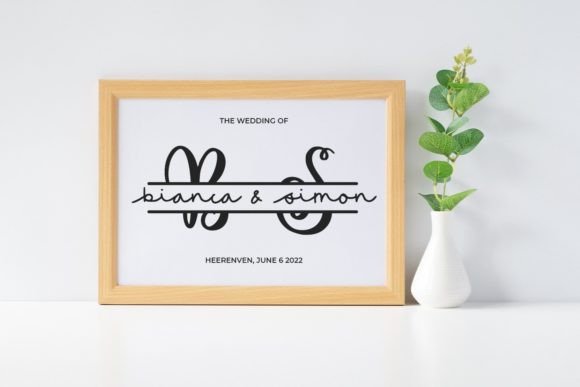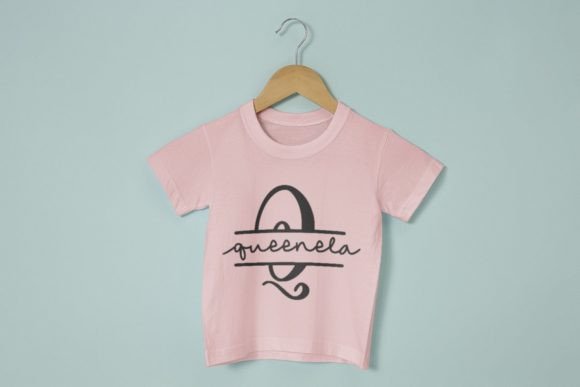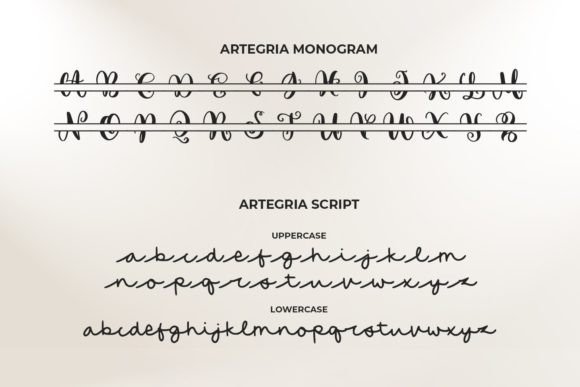
Introducing Artegria Duo Font: Elevate Your Designs with Elegance and Versatility
Are you a designer, crafter, or creative enthusiast looking for a font that can take your projects to the next level? Look no further than the Artegria Duo Font, a spectacular pair of script and monogram fonts that is sure to impress. In this article, we’ll dive into the world of Artegria, exploring its features, benefits, and uses, and discover how this incredible font duo can bring your designs to life.
The Artegria Duo Font: A Perfect Blend of Script and Monogram
Artegria is a thoughtfully crafted duo font that combines a beautiful script font with an elegant monogram font. This powerful pairing offers a wide range of creative possibilities, making it an ideal choice for designers and crafters who want to add a touch of sophistication to their work. Whether you’re creating wedding invitations, branding materials, or digital content, Artegria Duo Font is the perfect companion to help you achieve your design goals.
Key Features of Artegria Duo Font
- Incredibly Versatile: Artegria Duo Font is designed to fit a wide pool of designs, from elegant and sophisticated to playful and creative.
- Script and Monogram: The font duo includes a beautiful script font and a stunning monogram font, offering endless possibilities for creative expression.
- Elegant and Refined: Artegria’s elegant lines, curves, and flourishes add a touch of sophistication to any design, making it perfect for high-end branding, weddings, and special occasions.
Benefits of Using Artegria Duo Font
So, what makes Artegria Duo Font an excellent choice for designers and crafters? Here are just a few benefits you can expect:
- Time-Saving: With Artegria Duo Font, you can create stunning designs in no time, thanks to its versatility and ease of use.
- Consistency: The font duo ensures consistency across your designs, helping you establish a strong brand identity.
- Creativity Unleashed: Artegria’s unique and elegant style inspires creativity, allowing you to experiment with new ideas and push the boundaries of your designs.
- Professional Results: With Artegria Duo Font, you can achieve professional-looking results, even if you’re not a seasoned designer.
Who Can Benefit from Artegria Duo Font?
Artegria Duo Font is an excellent choice for a wide range of creatives, including:
- Graphic Designers: Add a touch of elegance to your branding, advertising, and marketing materials.
- Wedding Planners and Stylists: Create stunning wedding invitations, decorations, and stationery.
- Crafters and DIY Enthusiasts: Use Artegria Duo Font to add a personal touch to your handmade projects, such as cards, gift tags, and scrapbooking.
- Digital Content Creators: Elevate your blog, social media, or YouTube content with beautiful and engaging typography.
In conclusion, Artegria Duo Font is a game-changing duo font that can elevate your designs to new heights. With its versatility, elegance, and ease of use, this font duo is perfect for designers, crafters, and creatives who want to add a touch of sophistication to their work. Whether you’re creating stunning branding materials, beautiful wedding stationery, or engaging digital content, Artegria Duo Font is the perfect companion to help you achieve your creative vision.